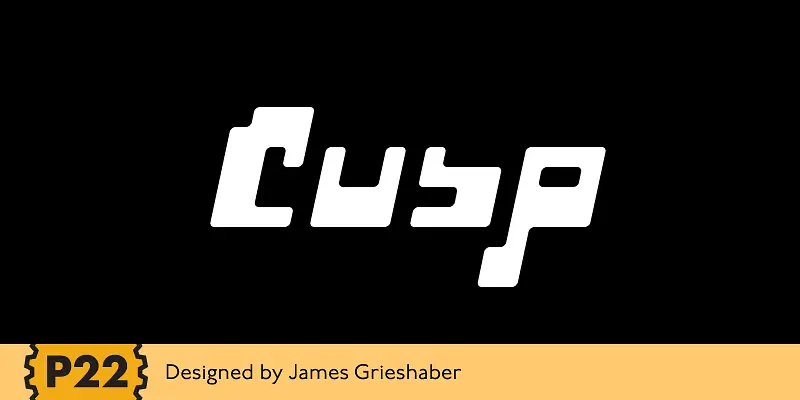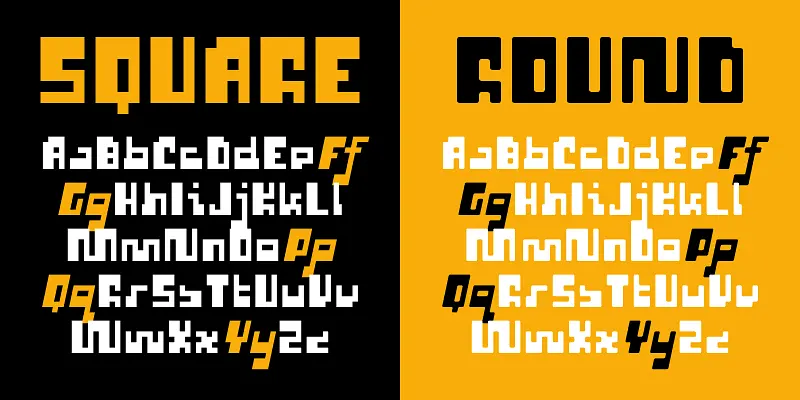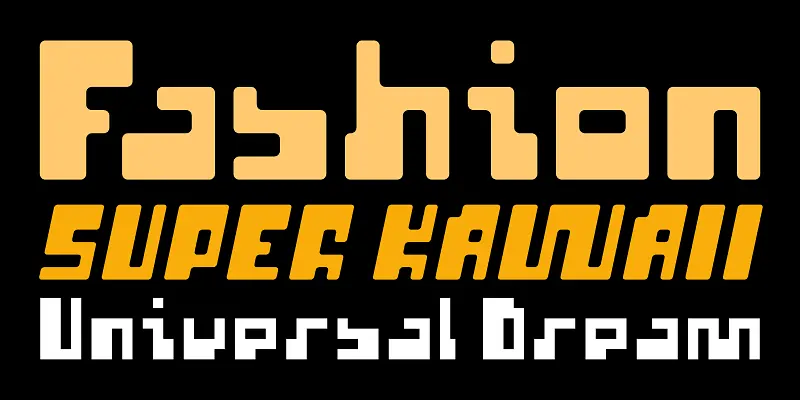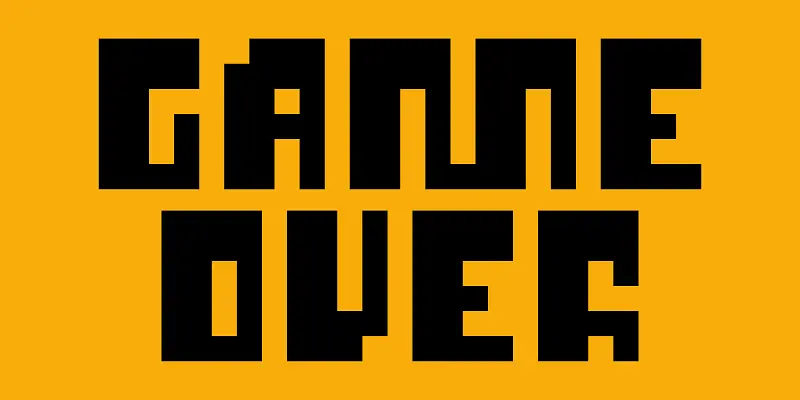
Cusp
Cusp is a display font that was initially inspired by austere Art Deco lettering. After the capitals were refined, then the lowercase was designed with a bit of techno flair. From these basic letterforms a variety of styles were created, ranging from the rigid DeStijl to the whimsical Loose. The result is a versatile display font family that allows the user to mix, match, and overlay the letters for a dynamic effect. In-fact 2 overlay fonts were designed specifically so that one can create graffiti-like multi-layered effects. Cusp is a super-kawaii display family of 16 fonts plus 2 overlay fonts.
Designed by James Grieshaber